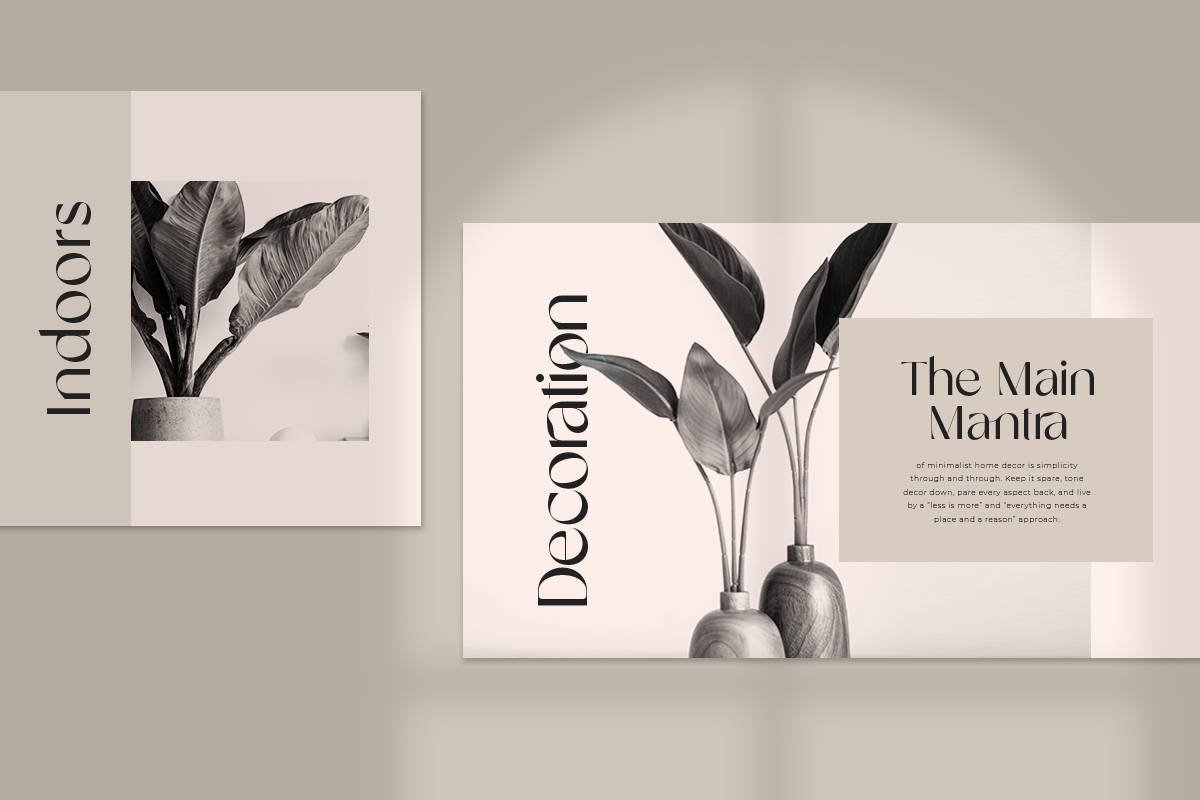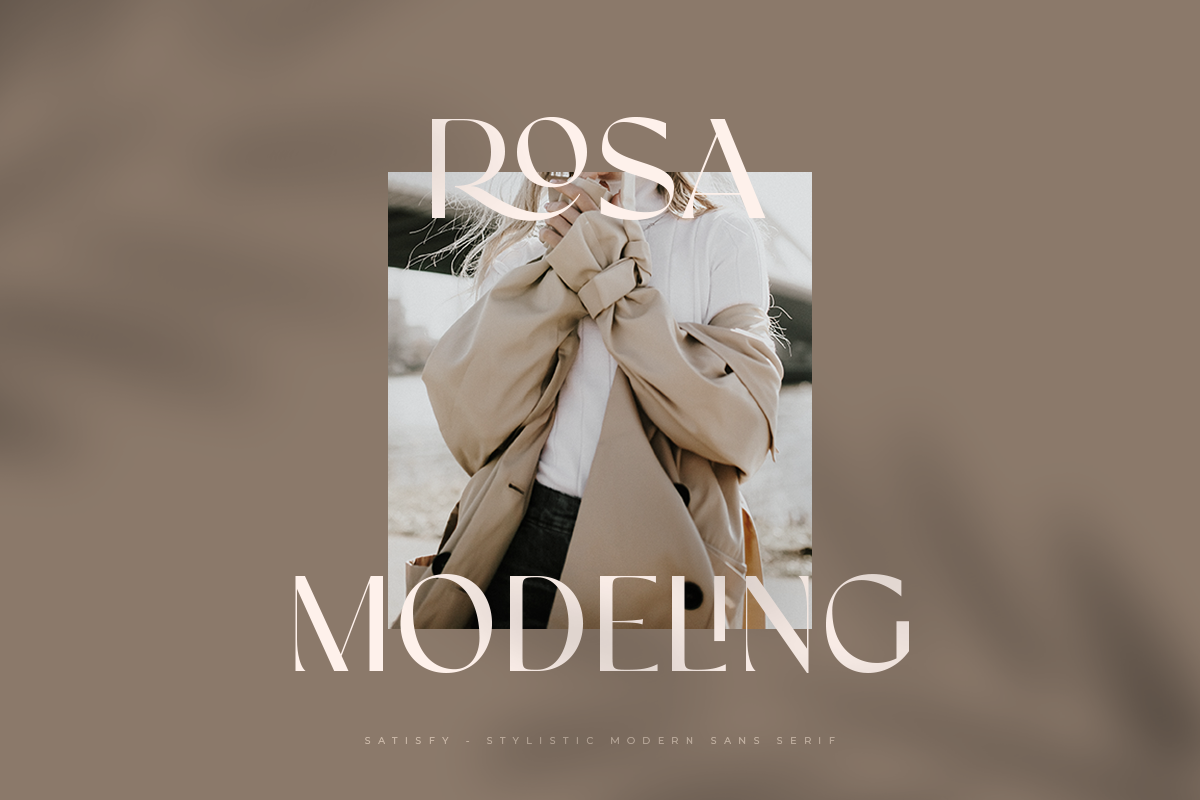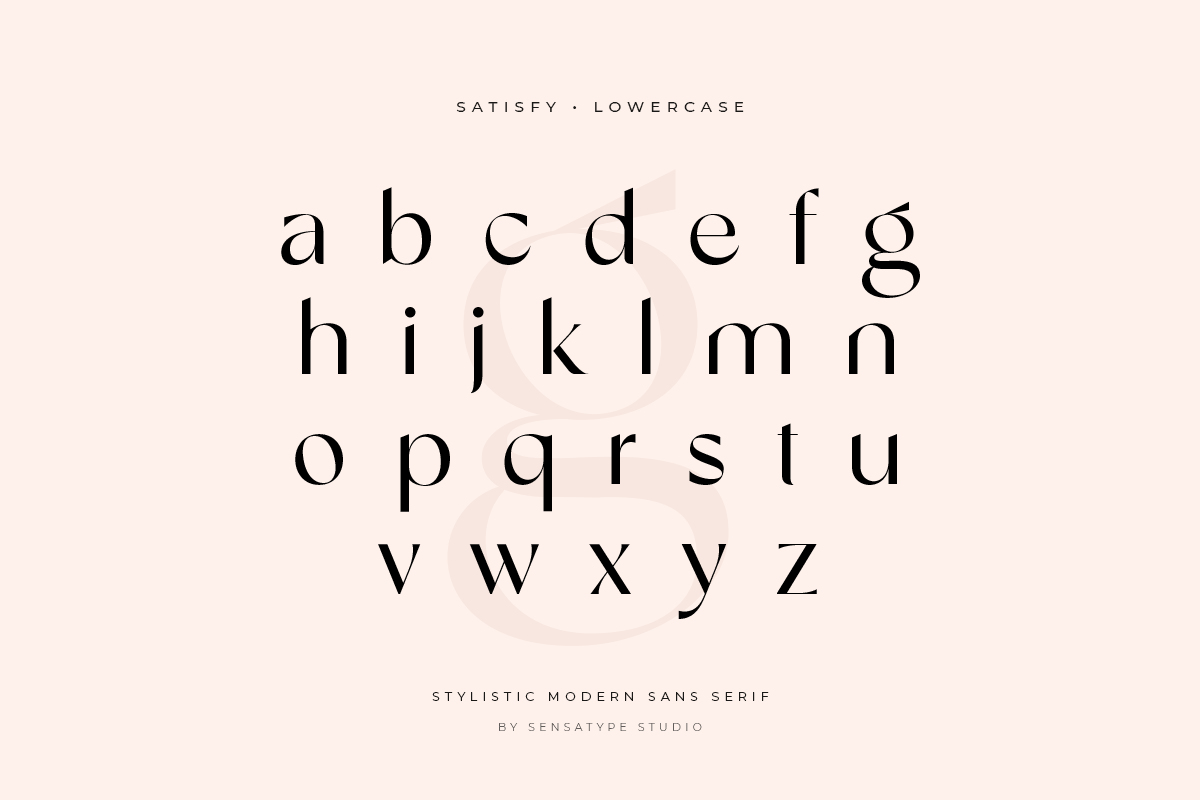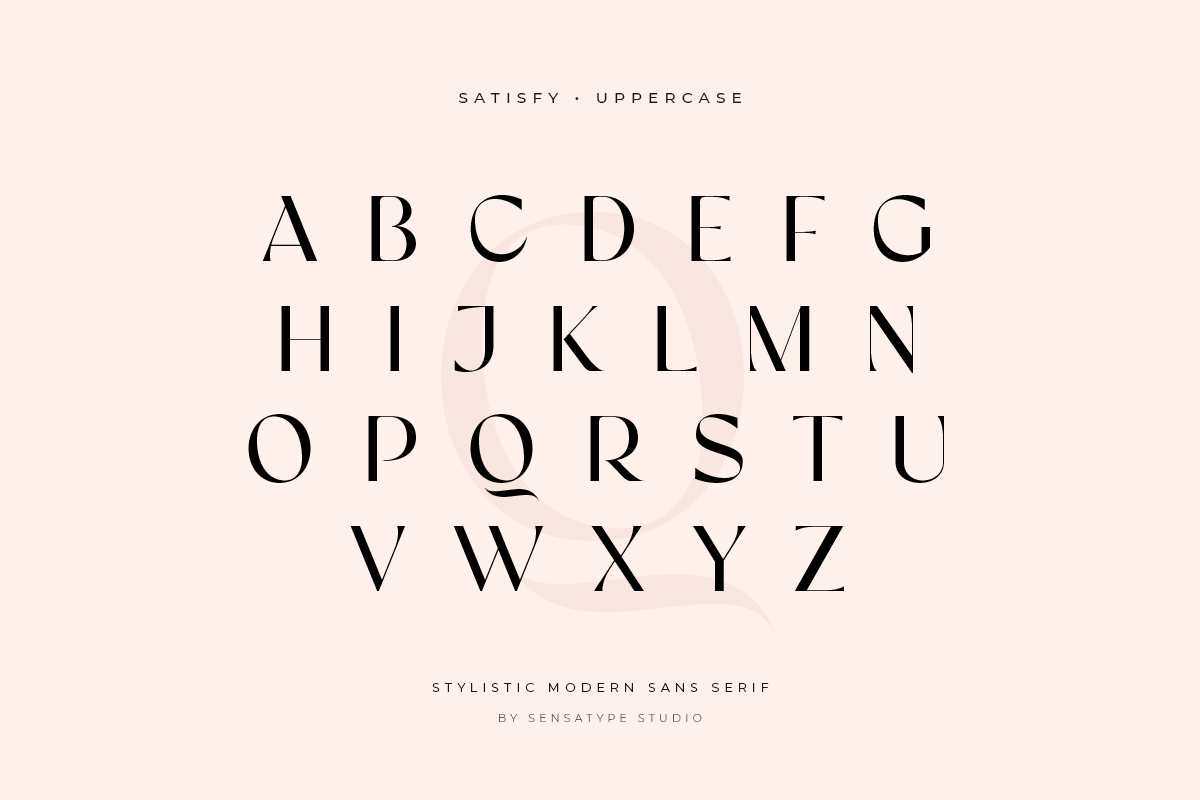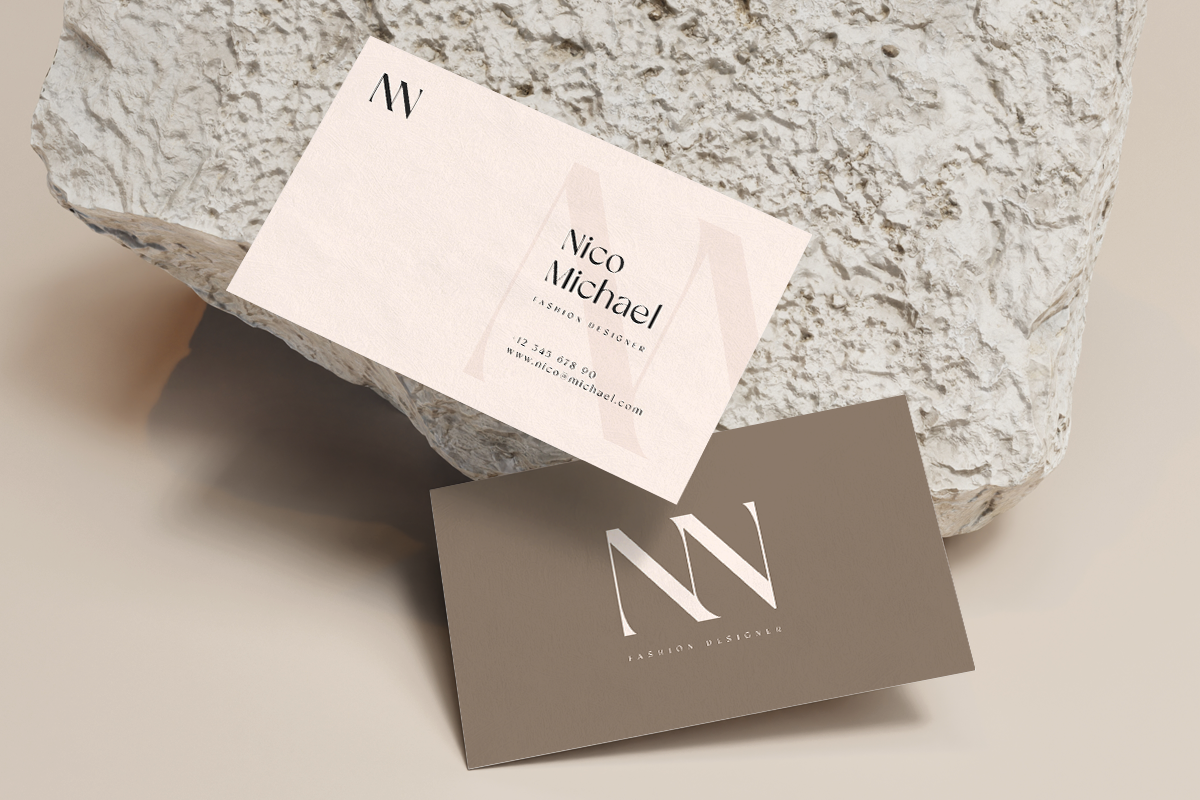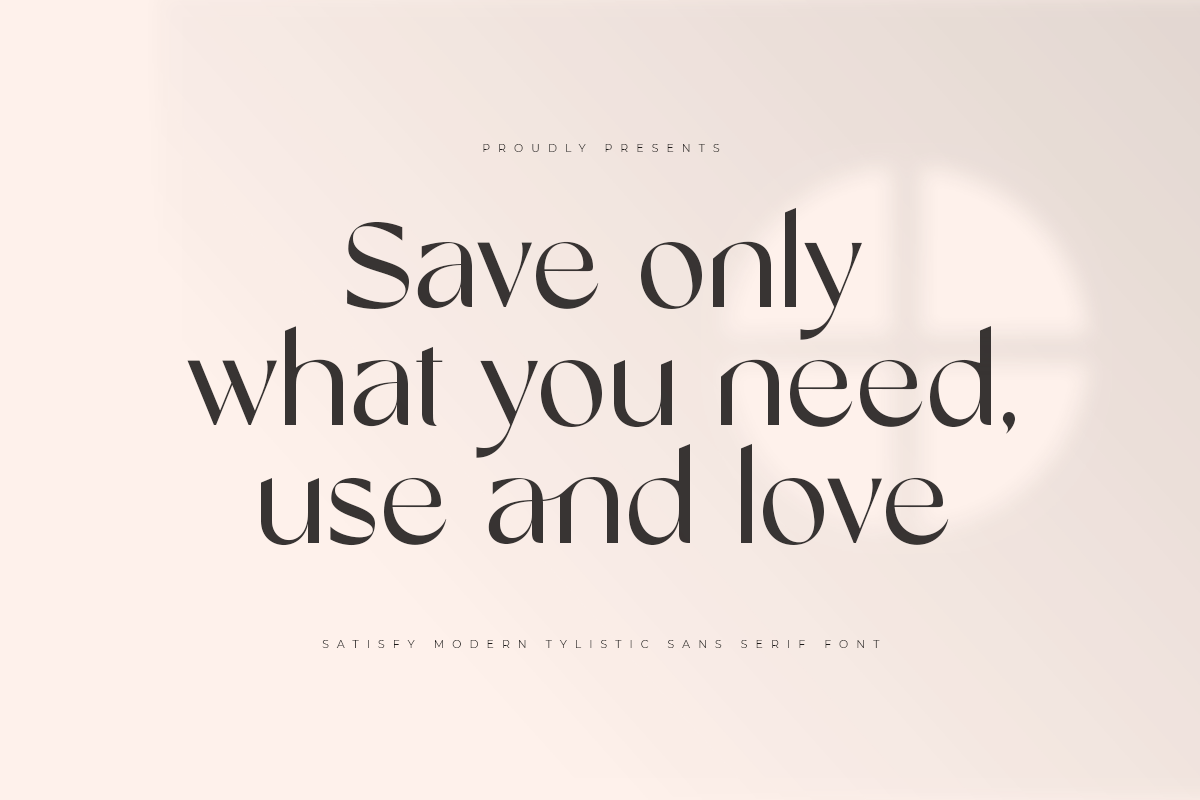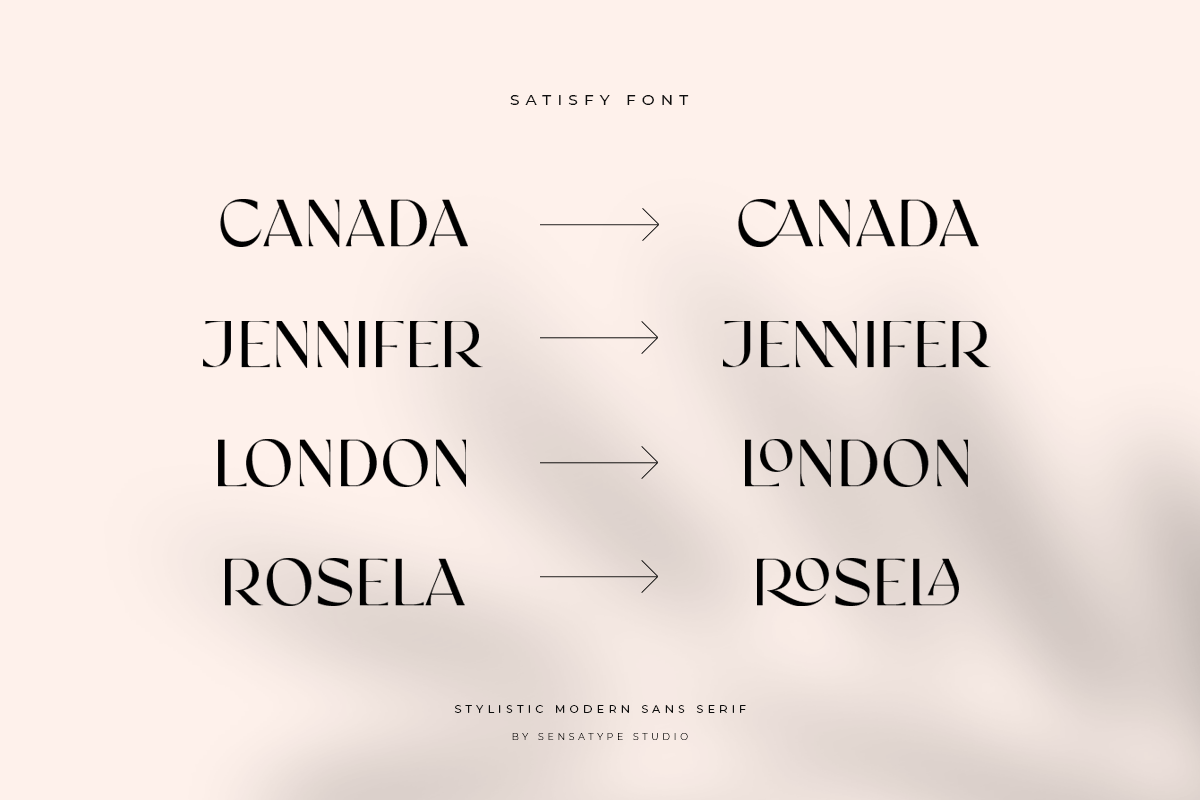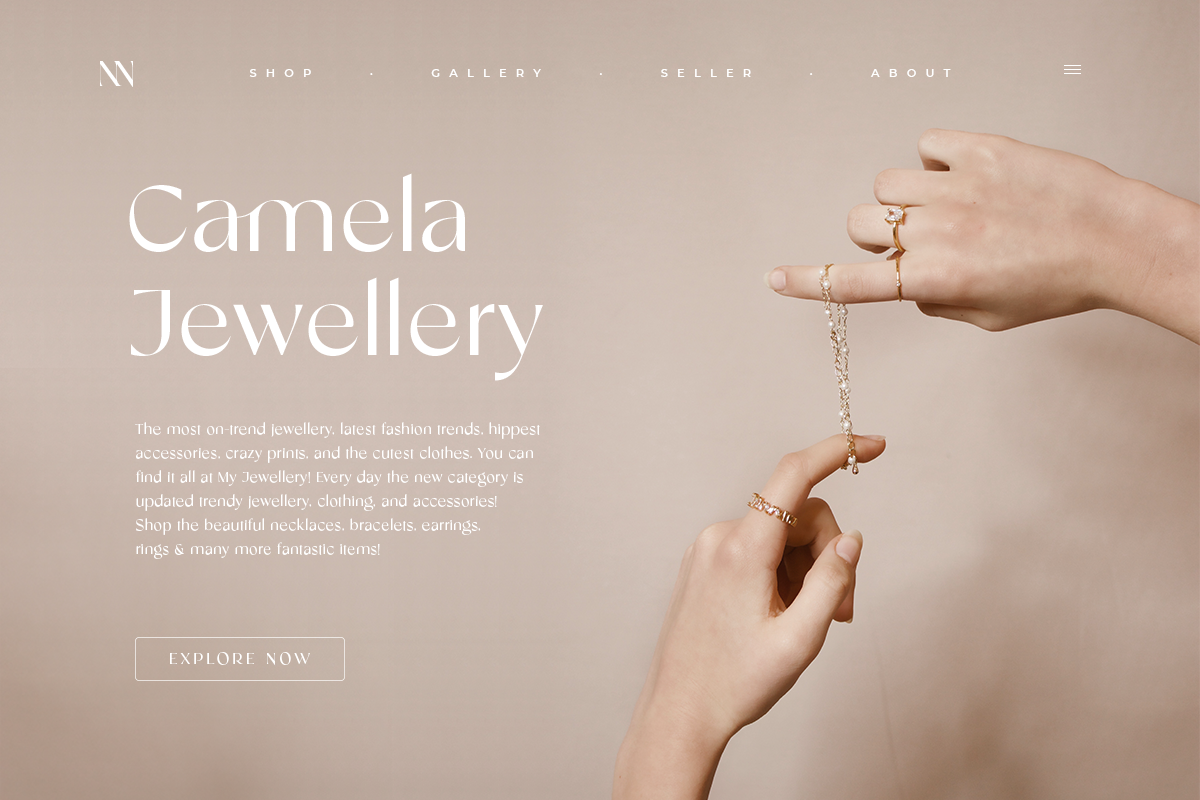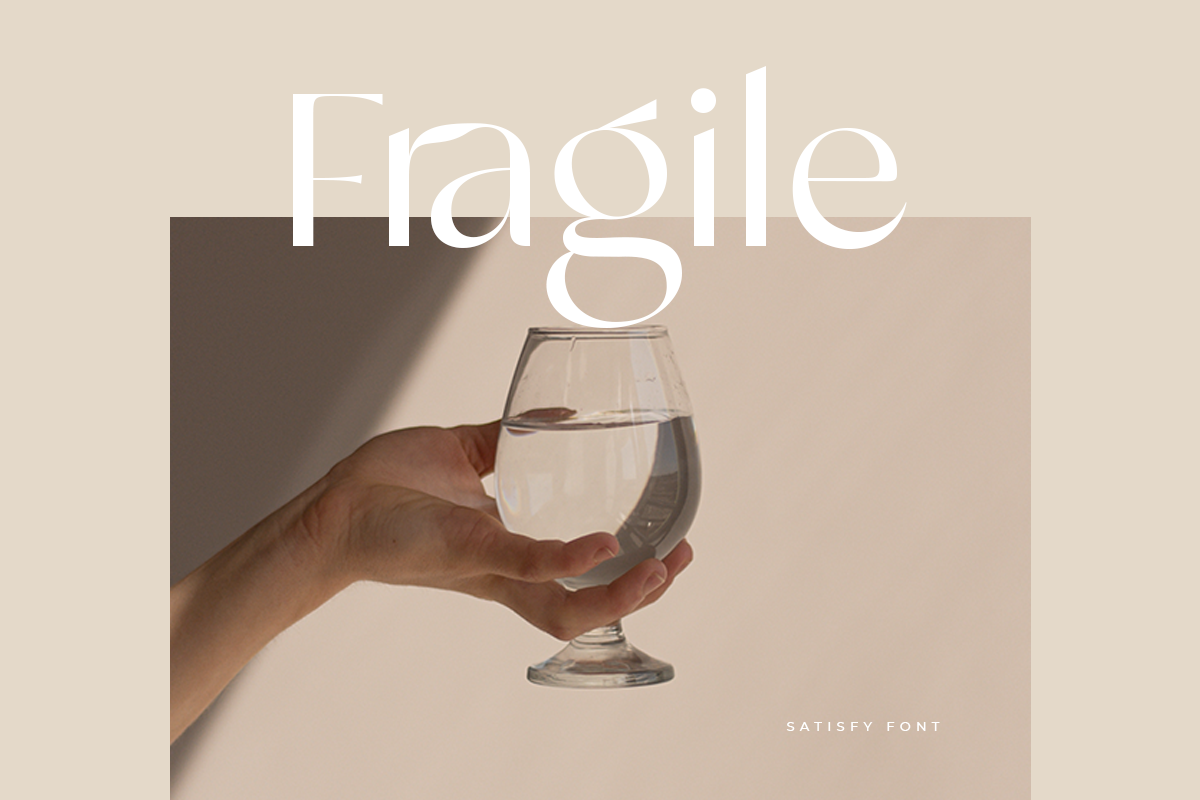
Satisfy is a Modern Stylistic Sans Serif
A new Sans serif that we created special for branding needs, with extra ligature in unique shape add value of your brand. It so nice to leverage designer or product owner that need solutions to make their design look more stylish and modern. And specially for satisfy font, We prepared any ligatures, and any alternate characters to help you create unlimited variations for your creative needs.
Satisfy sans serif font ready with:
- Any options to get creative variations (combination of Alternate and Ligatures)
- Preview as a inspirations that you can do with Satisfy font
- Ready with Lowercase and Uppercase characters
Great font! Created a logo with this font in under 2 minutes. Font lettering and ligatures are unique and interesting enough for a type-only logo.